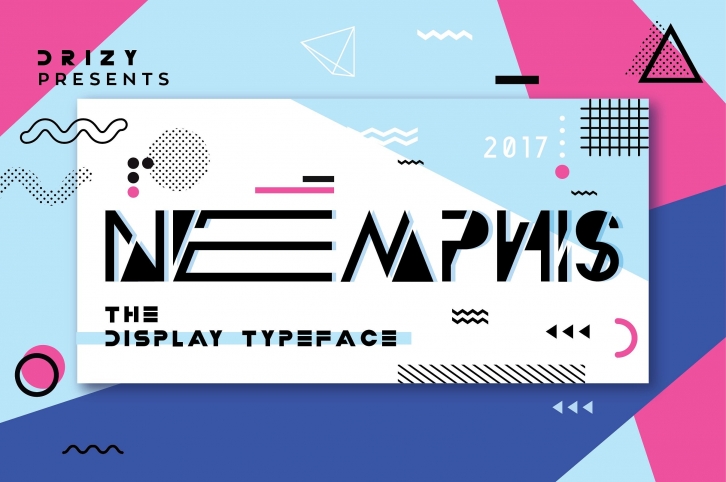
Nemphis is a beautiful font that was designed by drizy studio. It's a great choice for designers and creatives who need such a font. It was released on February 23, 2017 and the file size is 14.14 MB. Nemphis may give a more youthful, expressive and casual look to your project. It is a very beautiful, refined, elegant, and high-quality font.